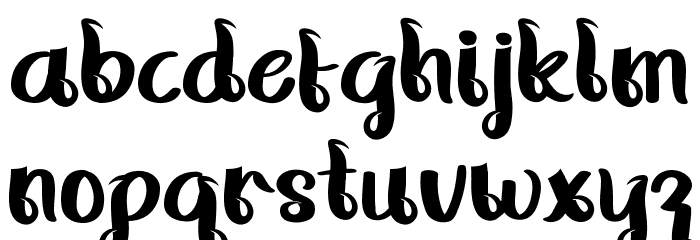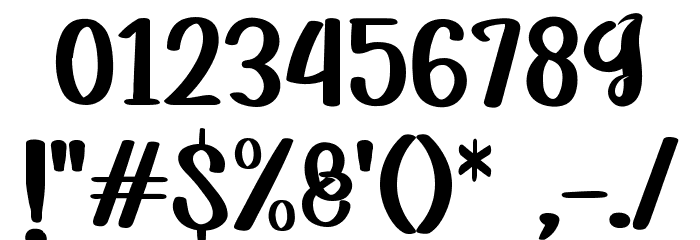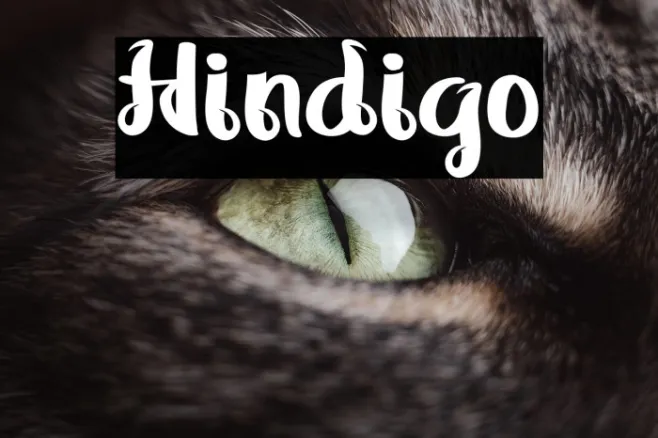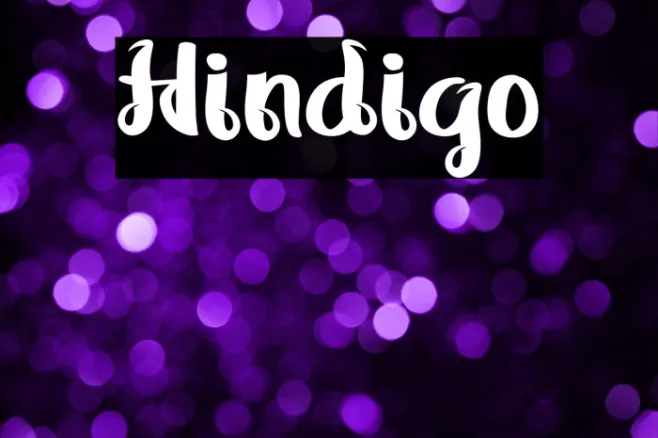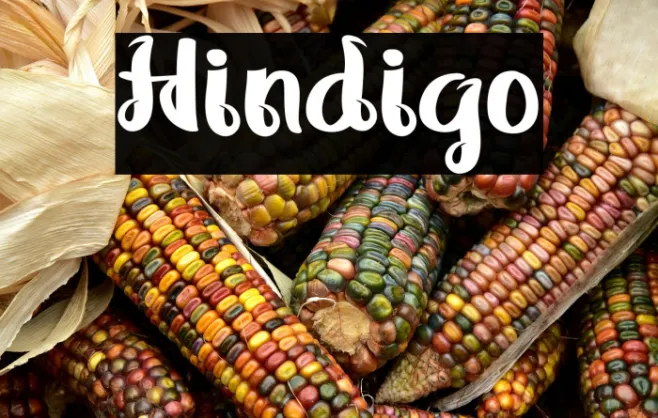
Hindigo Font
This font features a bold and decorative style with a playful and whimsical flair. The characters are crafted with thick strokes and unique curls, giving it a lively and dynamic appearance. The uppercase and lowercase letters maintain a consistent style, with the lowercase letters slightly more compact. The numerals and special characters follow the same decorative theme, making the entire set cohesive. This font is ideal for projects that require a touch of creativity and fun, such as children's books, playful branding, or festive invitations.
A bold, decorative font with playful curls and thick strokes.
- Proposed Projects: Ideal for children's books, playful branding, festive invitations, and creative posters.